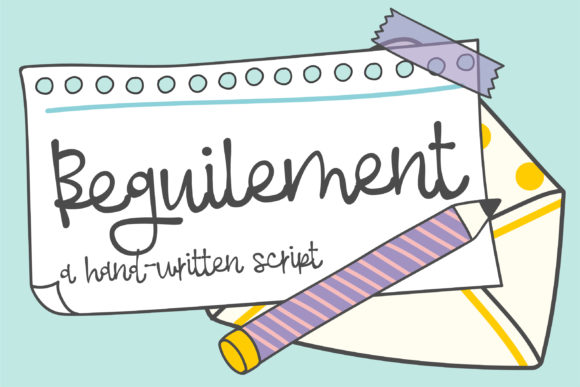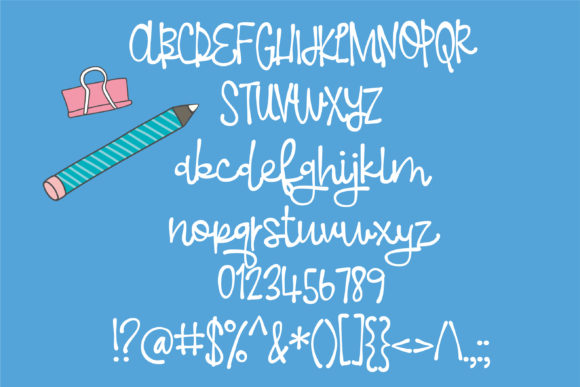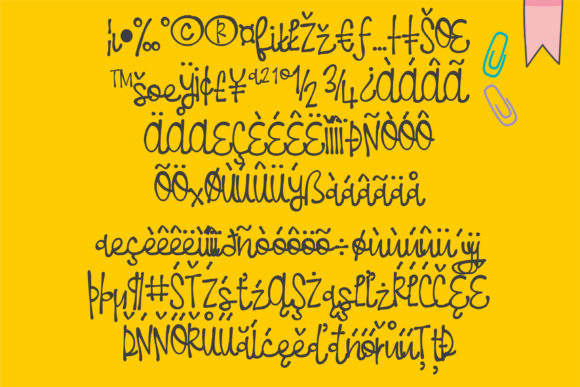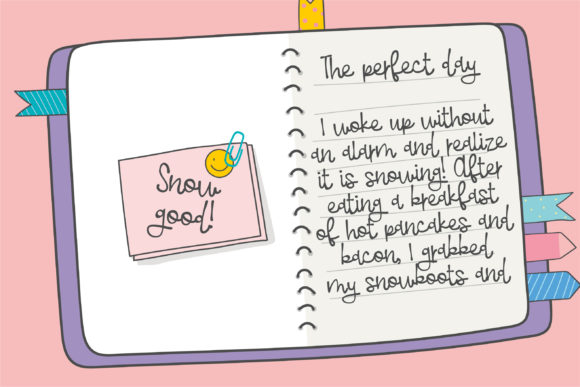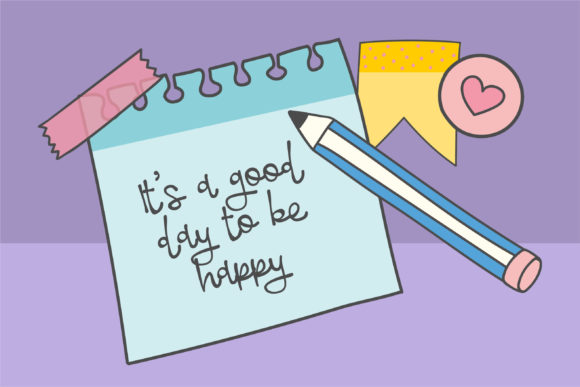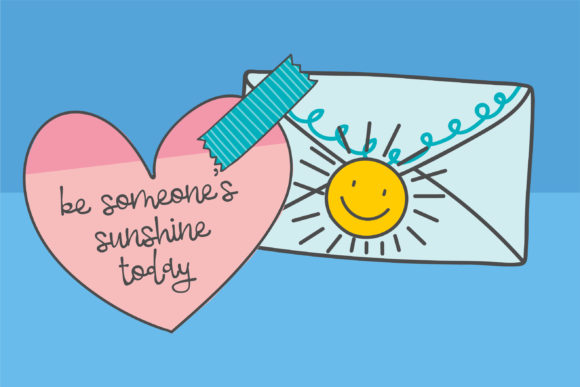
Beguilement Font
About Beguilement Font
Beguilement is a sweet and flowing handwritten font. Its simple and well balanced characters make this font incredibly versatile, fitting a wide pool of contexts, both formal and non-formal.